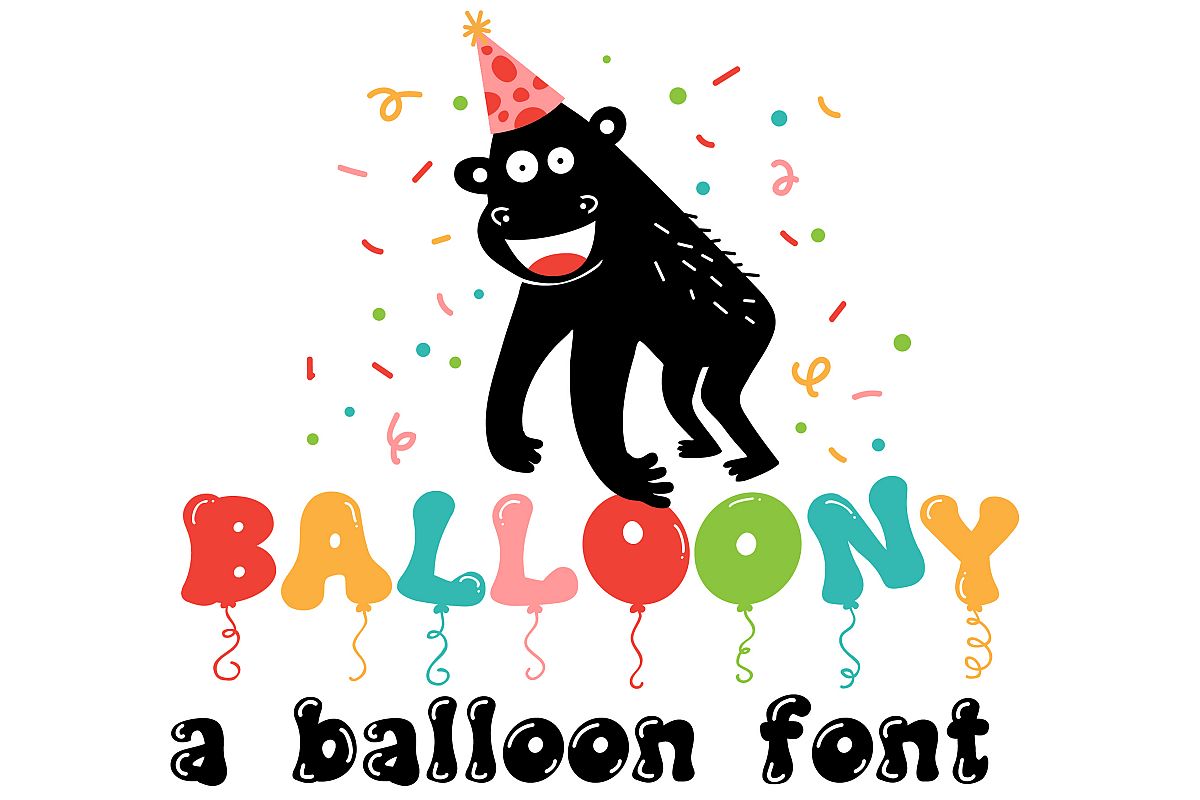
This cute and whimsical font looks like it was made of balloons. There are two uppercase but both are different so you can make creative looks without being repetitive.